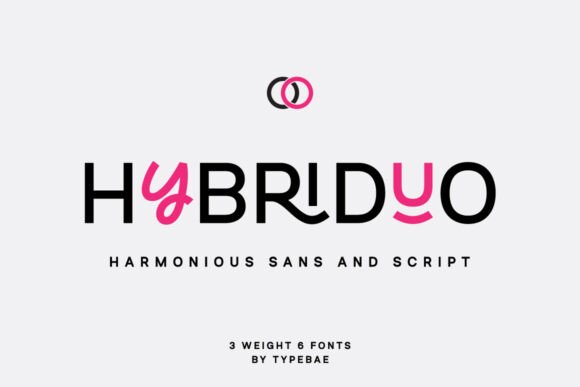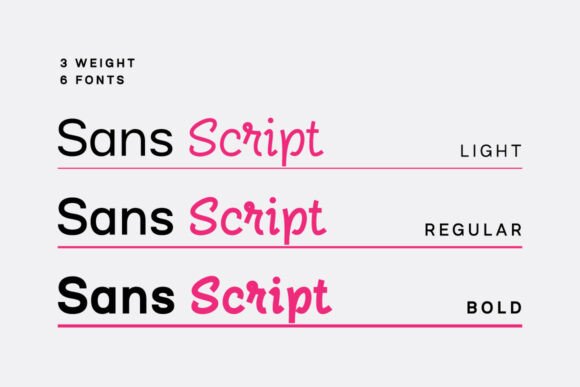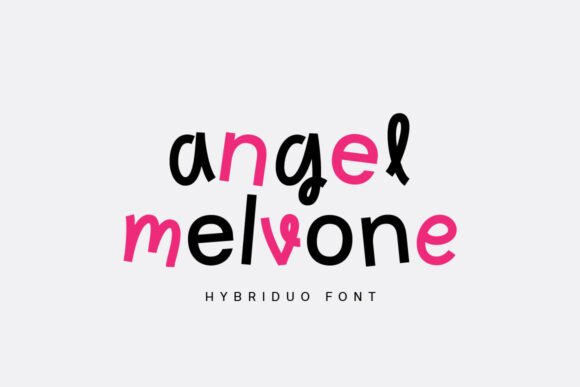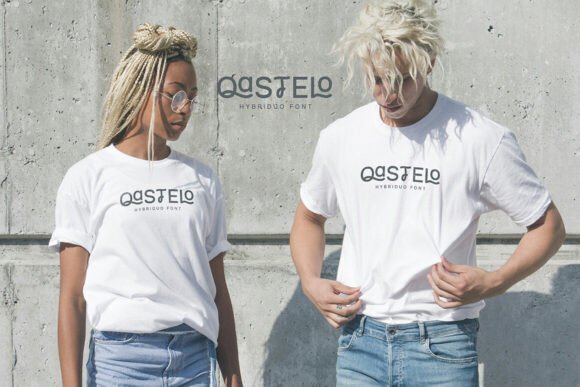
Hybriduo Font: A Playful Sans & Script Pairing for Modern Branding
About the Hybriduo Font
Meet Hybriduo Font, a stunning font that brings a touch of elegance and professionalism to any design. Hybriduo is a stylish and playful pairing of Sans and Script fonts. This perfectly balanced typeface has been thoughtfully designed to shine both as a standalone font and in seamless combinations. Whether you place the Script font between Sans letters, experiment with swooping Sans ligatures, or embrace the lively small caps, the possibilities are endless. With versatile options for lowercase and uppercase styles, plus three weights per font, you get a total of six fonts to explore!
Hybriduo’s playful energy makes it ideal for branding projects targeting a young, vibrant audience, particularly in areas like fashion, food, or entertainment. It works exceptionally well in headlines, short text blocks, and logos, adding a touch of whimsy and personality. However, its script elements make it less suitable for body text or UI elements requiring high readability.
For optimal visual harmony, pair Hybriduo’s Sans with a clean, geometric sans-serif like Montserrat for a modern feel, or a classic serif like Garamond for a touch of sophistication. The script component pairs well with a simple, neutral sans-serif like Lato to provide a counterpoint to its playful curves.
Hybriduo’s overall personality is best described as bold and friendly, though its versatility allows for adjustments in tone depending on the pairing and application. Avoid using it in contexts demanding extreme formality or legibility over visual interest.
Hybriduo Font Usage Examples
Hybriduo Font Example